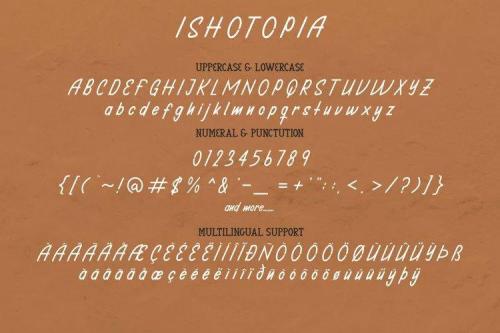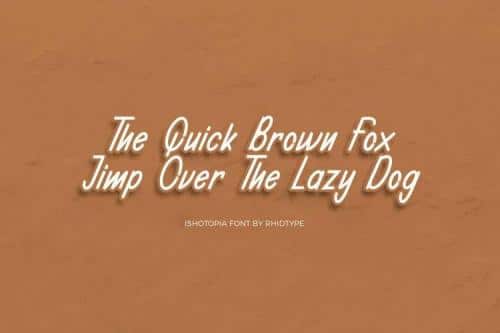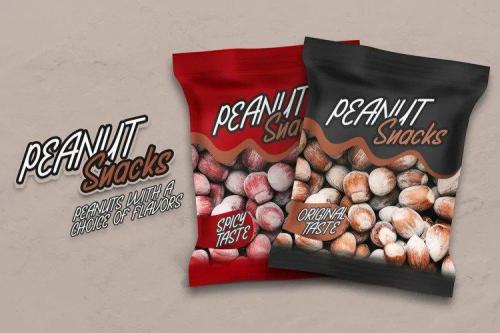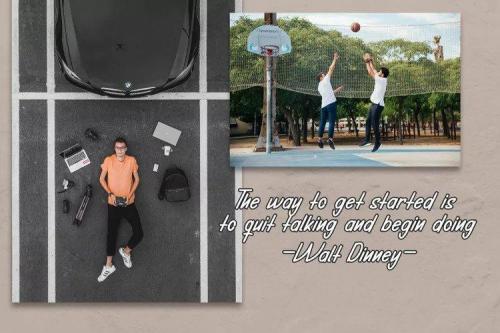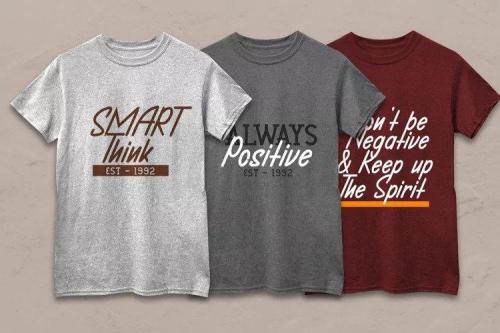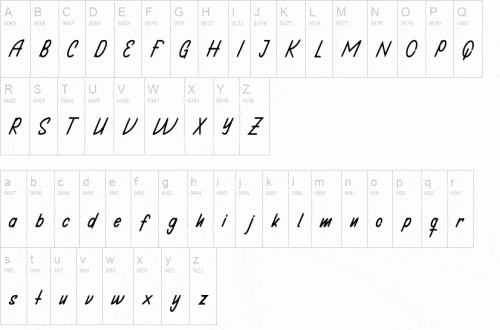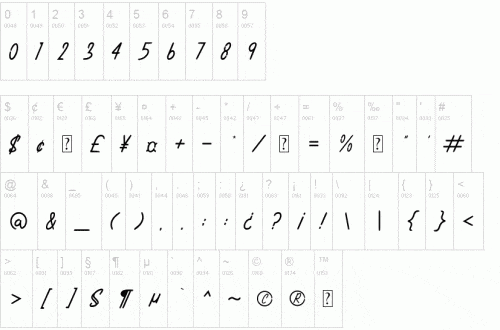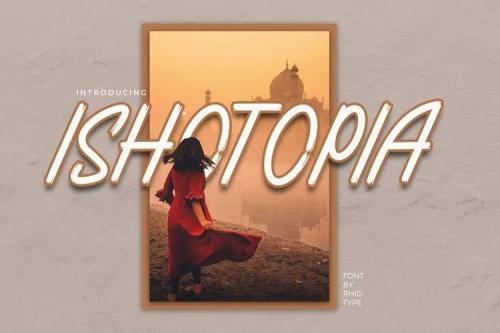
Ishotopia Font
Ishotopia is a friendly display font. Give your designs an authentic touch with this font. Ishotopia is perfect for business cards, stationery, logos, typographic quotes, magazine or book covers, website headers, flyers, clothing, brands, packaging designs and more.